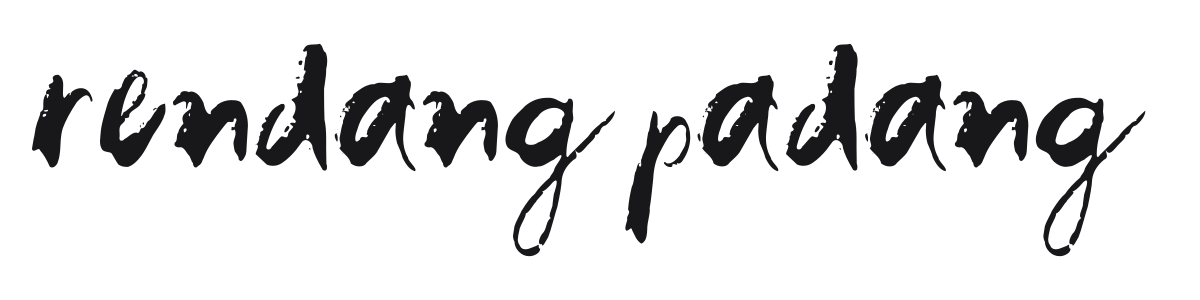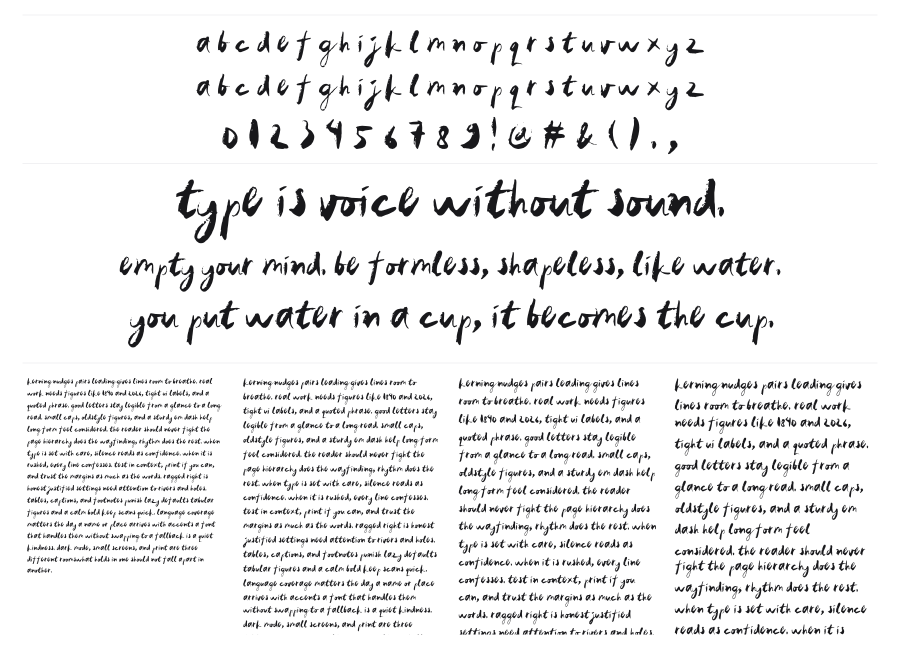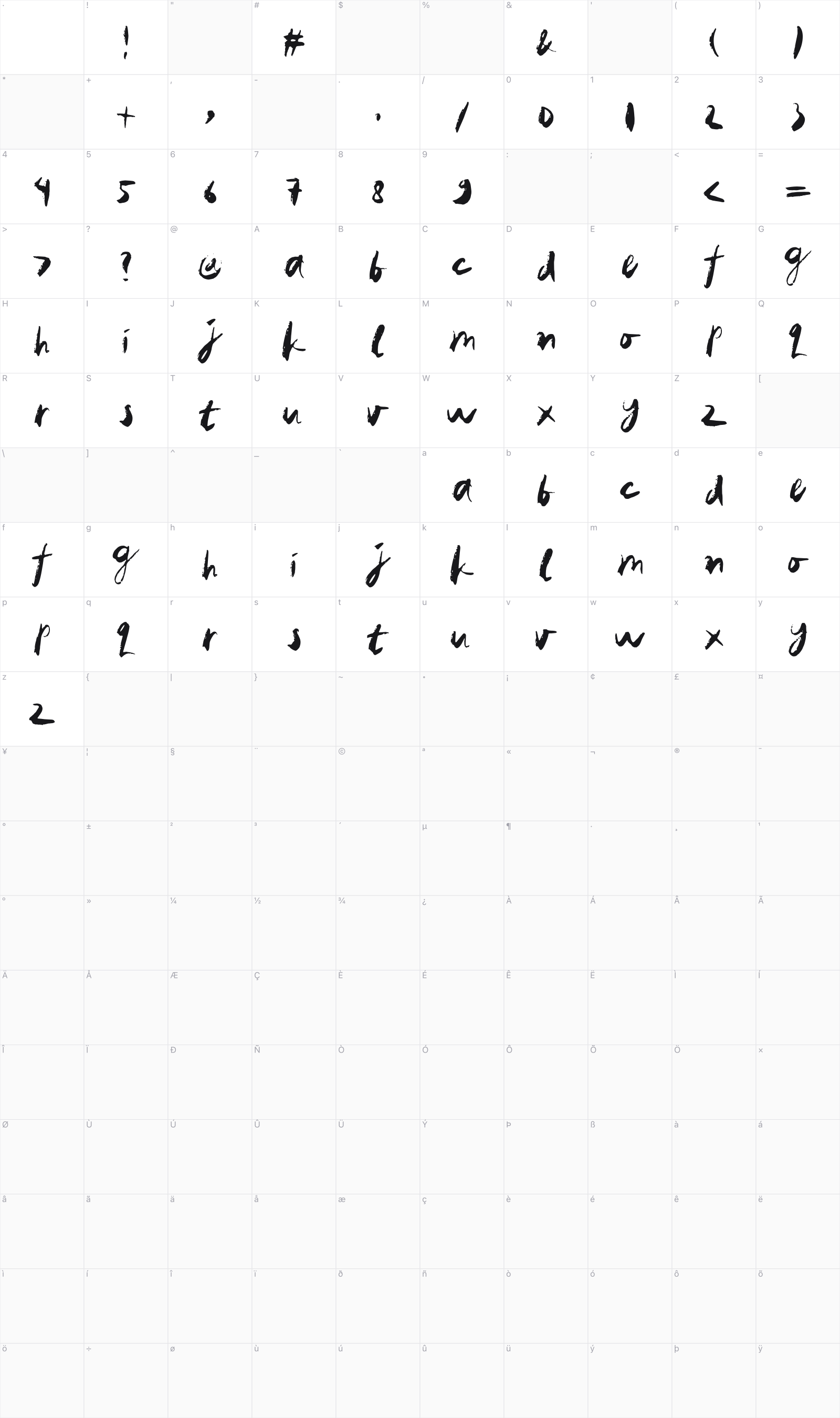
Rendang Padang
Rendang Padang is a heavy brush script with thick, ink-soaked strokes and a rough, bristled texture that looks genuinely hand-painted. The characters flow loosely with an unpredictable energy, capturing the immediacy of a wide brush moving fast. It carries the feel of an artisan market sign or handwritten restaurant logo.